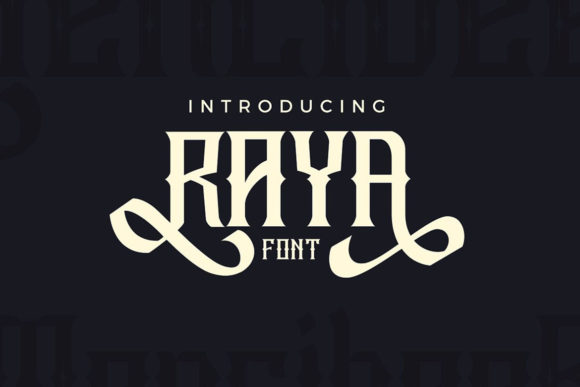
Behold, Raya Font, the captivating display font that will ignite your creative spirit and transform your designs into masterpieces. Its exquisite ornamental vintage style, reminiscent of a bygone era, exudes elegance and sophistication, while its remarkable swashes add a touch of whimsy and charm. With Raya Font, you hold the key to unlocking a world of design possibilities.
Step into a realm where typography meets artistry, where every letter is meticulously crafted to convey emotions and tell stories. Raya Font is the maestro of expression, allowing you to paint your words with a palette of visual allure. Its graceful curves and elaborate embellishments command attention, making every word a work of art.
Unleash your imagination and let Raya Font take you on a journey through time. Its vintage charm evokes a sense of nostalgia, transporting your designs to a world of classic elegance. From enchanting wedding invitations to sophisticated logos, Raya Font adds an air of timeless beauty to every project it graces.
Beyond its aesthetic prowess, Raya Font is a versatile performer, adapting seamlessly to a myriad of design endeavors. Whether you're crafting captivating branding materials, designing eye-catching headings, or creating heartfelt invitations, Raya Font rises to the occasion, delivering stunning results that leave a lasting impression.
With Raya Font, you'll discover a font that's not just a tool, but an extension of your creativity. Its versatility empowers you to tackle any design challenge with confidence, knowing that you have a font that will elevate your work to new heights.
So, embrace the magic of Raya Font and embark on a creative odyssey where your designs take center stage. Let its vintage elegance, captivating swashes, and boundless versatility inspire you to create masterpieces that resonate with your audience.